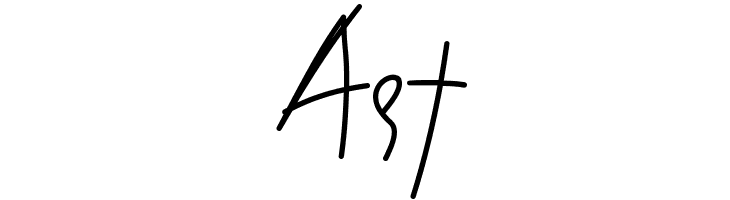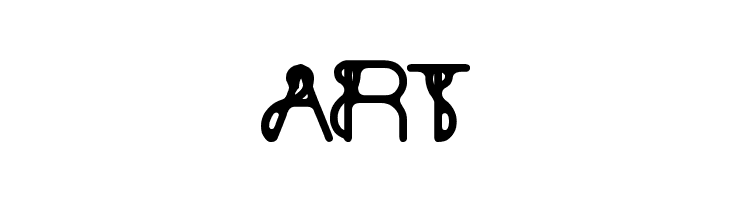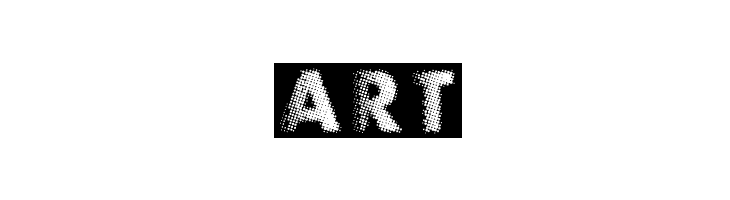
A flowing, cursive script font with elegant loops and swirls.
A lively, flowing handwritten font with smooth cursive strokes and playful loops.
A dynamic, brush-stroke font with an expressive, hand-drawn style.
A bold, decorative font with a halftone dot pattern, ideal for vintage or pop art designs.
Bold, halftone dot pattern font with a vintage comic book style.
A decorative, angular font with sharp geometric lines and intricate patterns.
A bold, geometric font with intricate, angular designs and a futuristic aesthetic.
A playful, decorative font with circular cutouts and a retro vibe.
A decorative and intricate font with bold, interconnected loops and swirls.